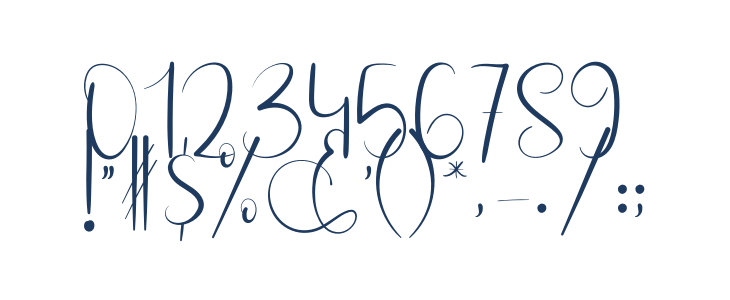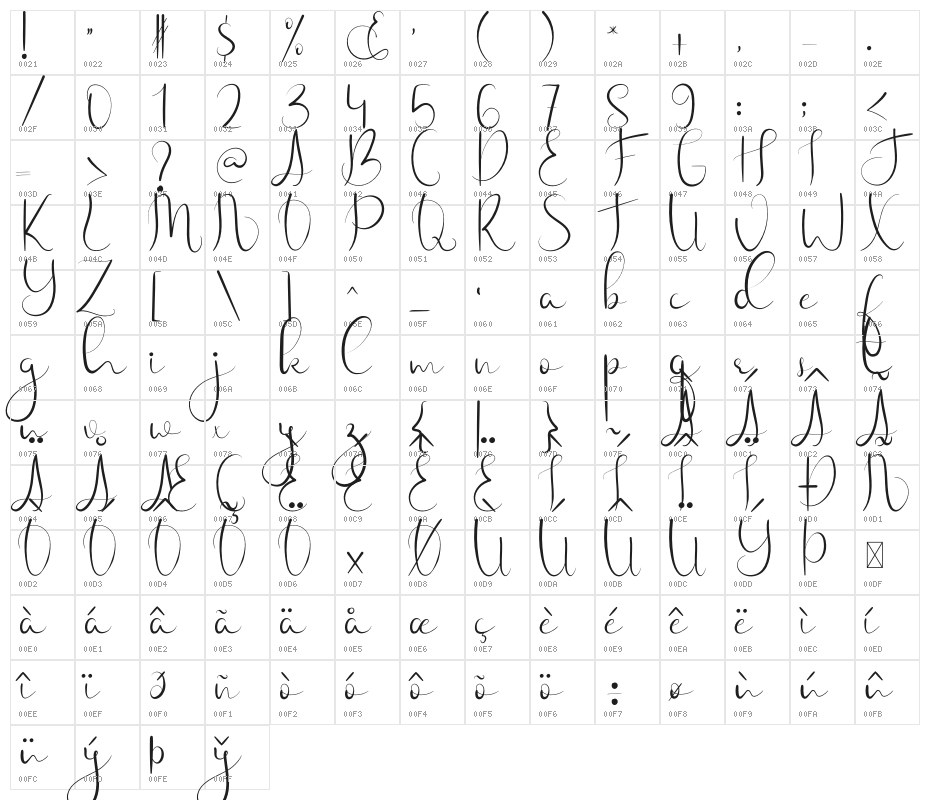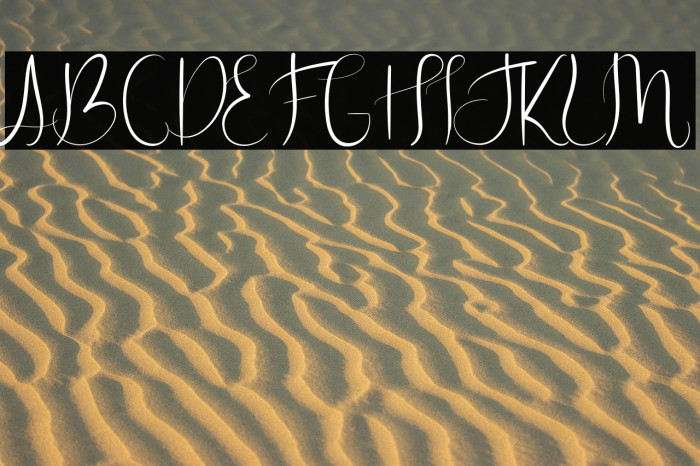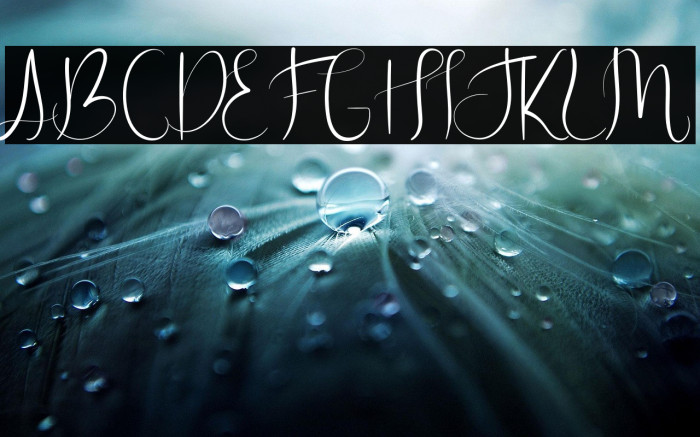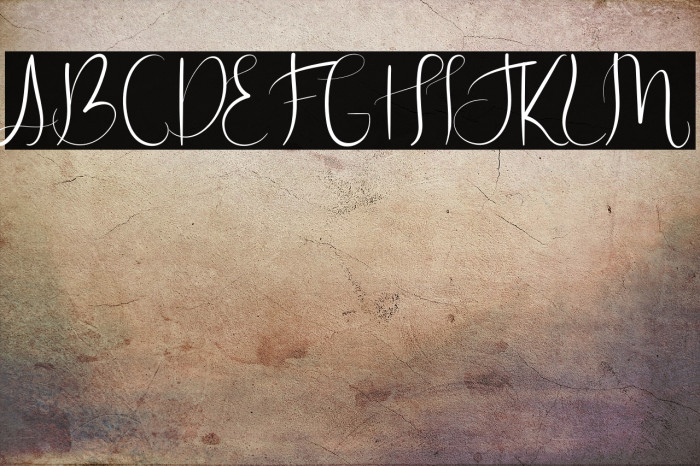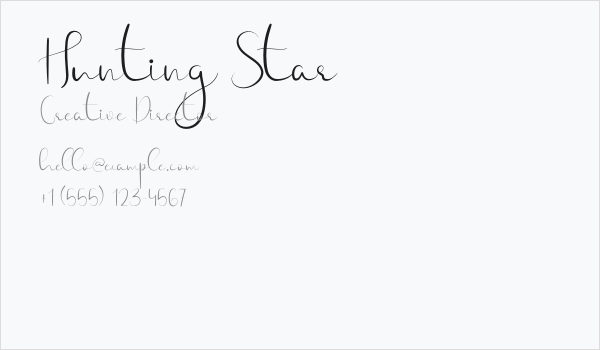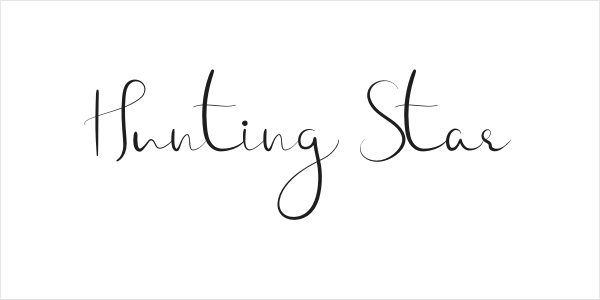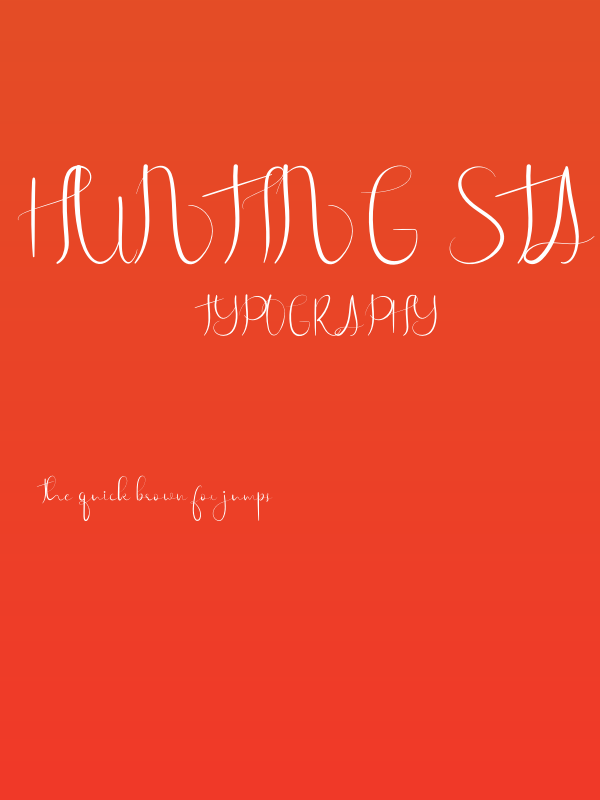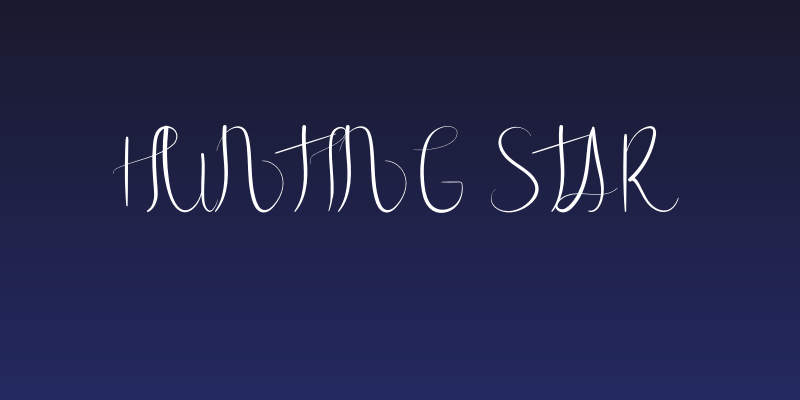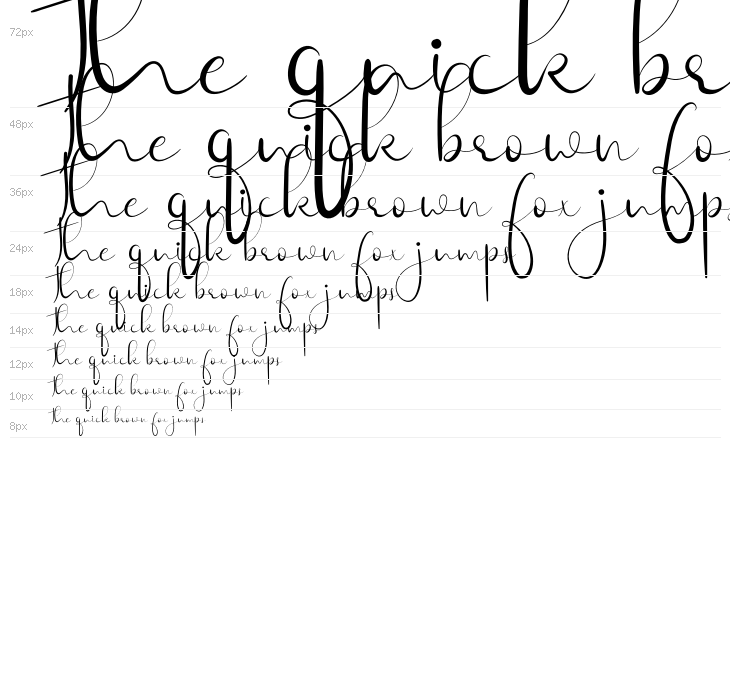
Hunting Star Font
Hunting Star Description
This font features an elegant and flowing script style, characterized by its delicate and intricate letterforms. The uppercase letters exhibit graceful loops and swirls, while the lowercase letters maintain a consistent fluidity, enhancing the overall aesthetic. The numbers and special characters are designed with a similar flair, ensuring a cohesive look. The thin strokes and high contrast between thick and thin lines contribute to its sophisticated appearance, making it ideal for decorative purposes.